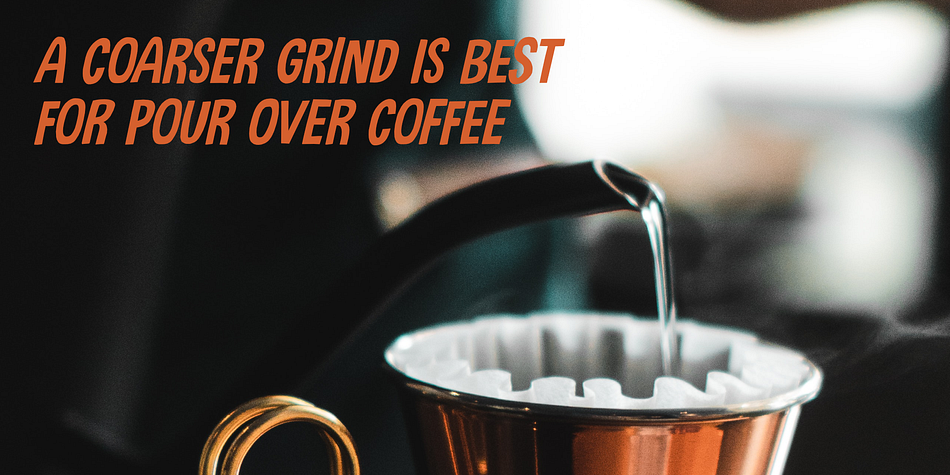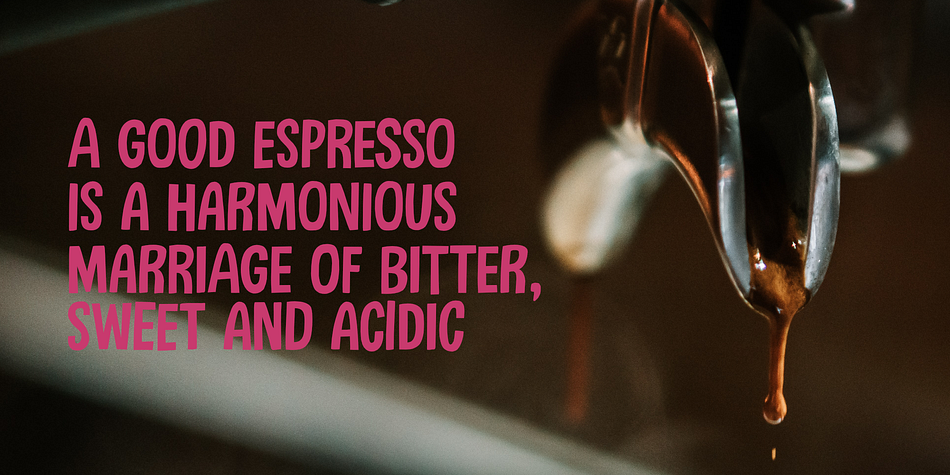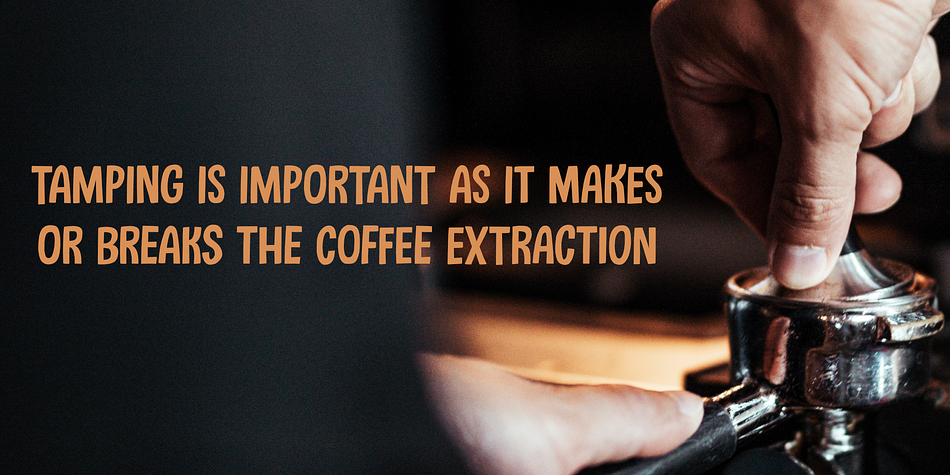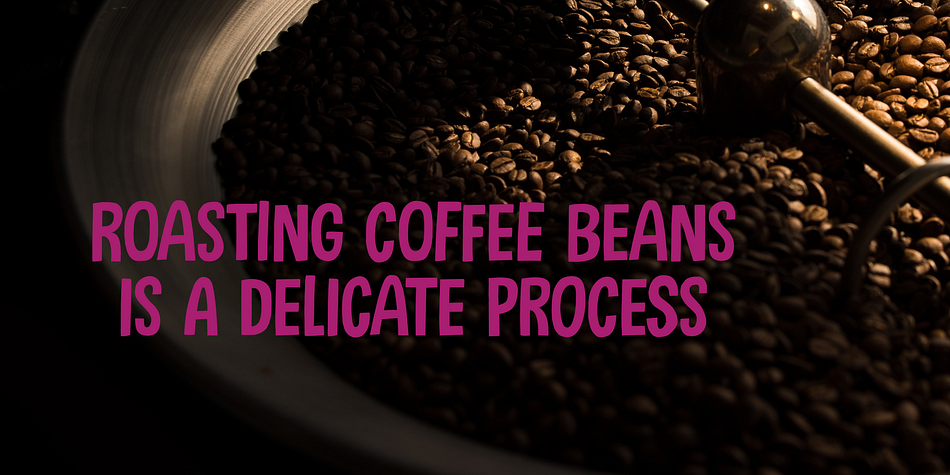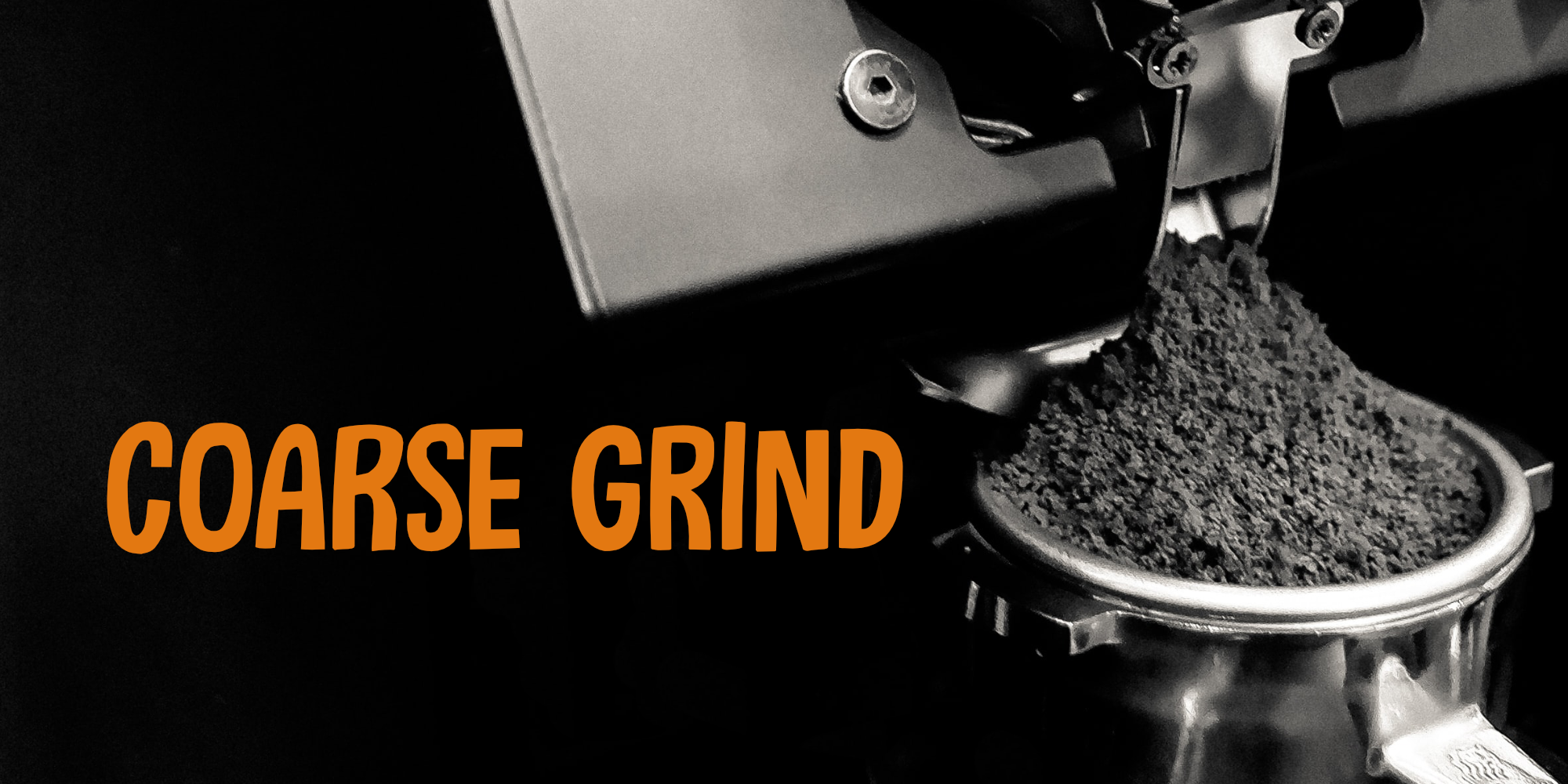
Coarse Grind
Designed by David Kerkhoff, Coarse Grind is a comic and hand display font family. This typeface has two styles and was published by Hanoded.
I bought a new coffee machine - the piston variety. It is shiny, made in Italy and I can make a killer espresso or latte with it. I usually start off the day with a pour over coffee and save my milky coffee for later. I also have two grinders: one for a coarse grind (pour over) and one for a finer grind (espresso and latte). Yes, you will probably say that it’s quite extravagant to have two grinders, but I do like my coffee!
Anyways, this is what I thought of when I worked on Coarse Grind.
Coarse Grind is a well balanced all caps display font. It comes with extensive language support and a set of alternates for the lower case letters.